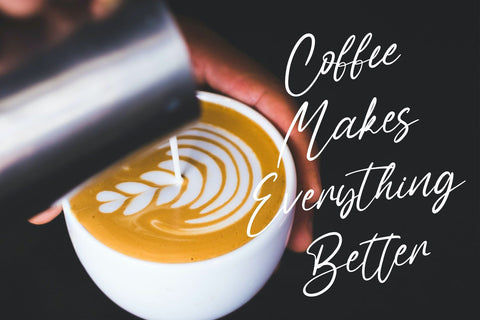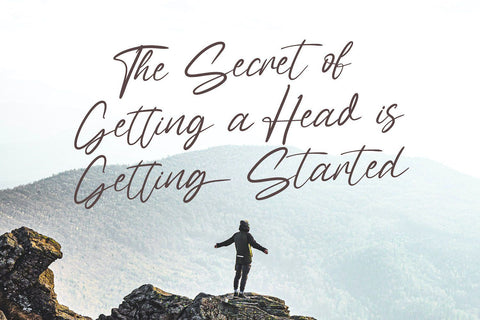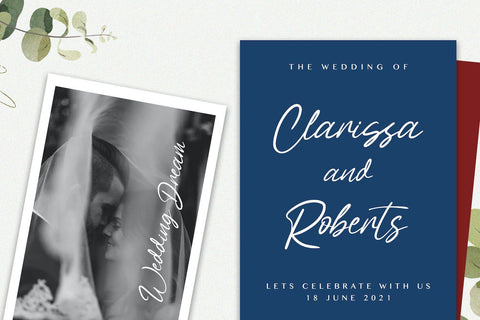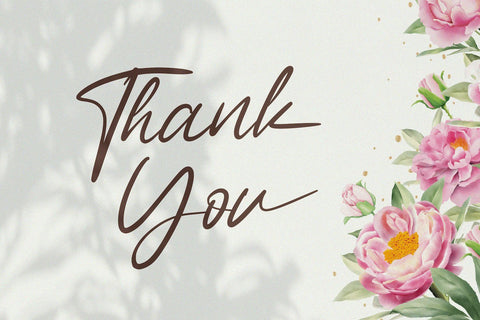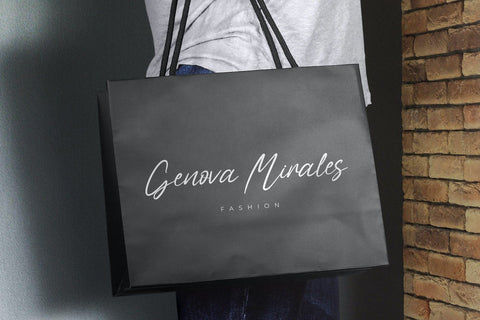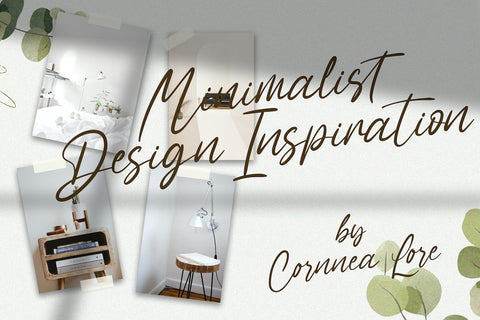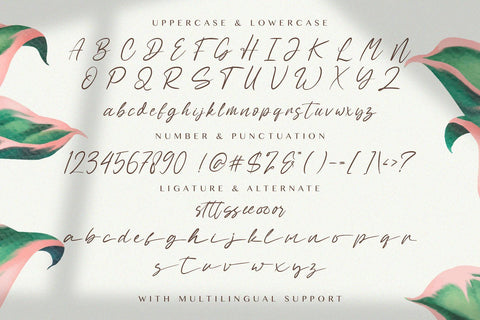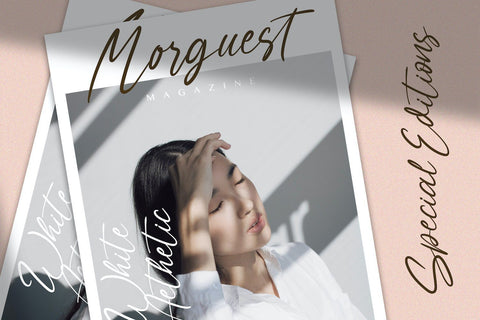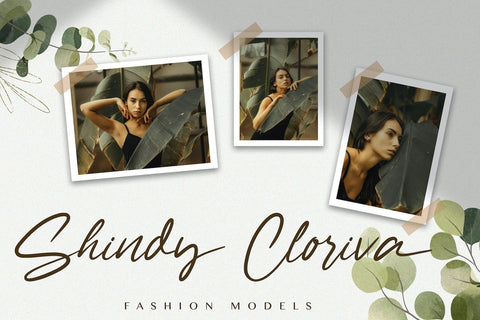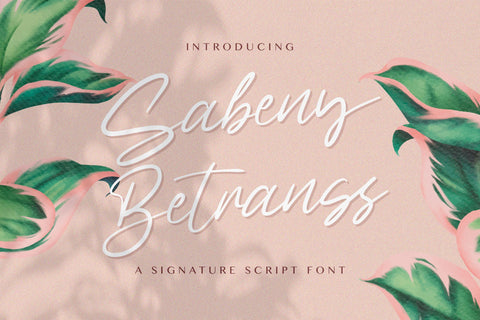
Sabeny Betranss - Handwritten Font
Introducing Sabeny Betranss - Handwritten Font
Sabeny Betranss is a delicate, elegant and flowing handwritten font. It has beautiful and well balanced characters and as a result, it matches a wide pool of designs. Add it to your most creative ideas and notice how it makes them come alive!